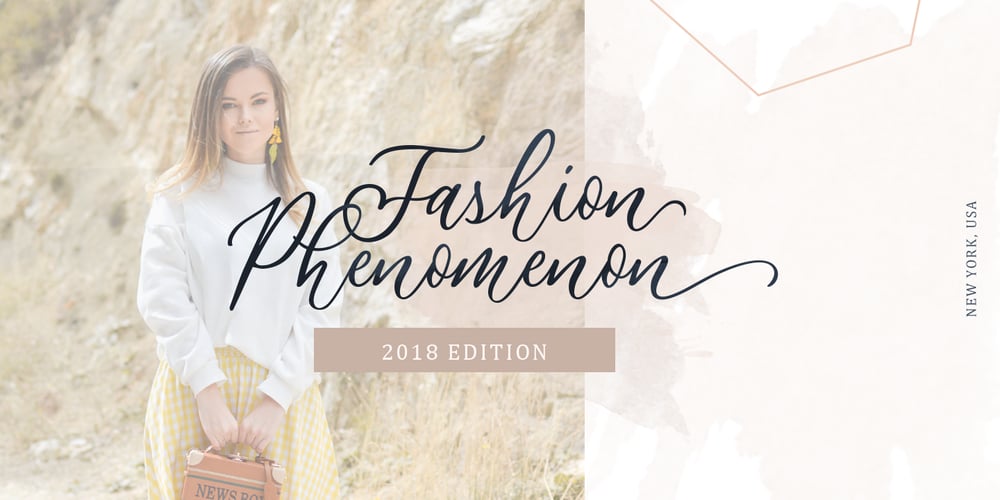
Athalia Script Font Family was designed by Hendry Juanda and published by Letterhend. Athalia Script contains 1 styles and family package options. Introducing, Athalia, a lovely modern script that bring luxury feel. The natural hand writing script is suitable for you who needs a typeface for headline, logotype, apparel, invitation, branding, packaging, advertising etc. This typeface is comes in uppercase, lowercase, punctuation, symbols & numerals, stylistic set alternate, ligatures, etc also support multilingual.